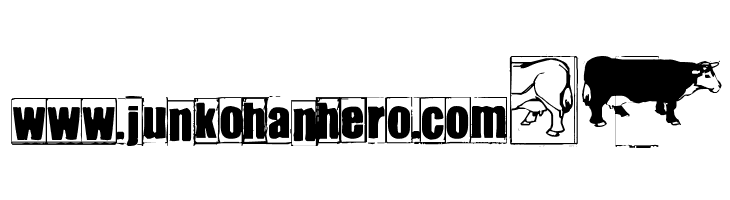
215000E Font
A bold, grunge-style font with a cut-out, distressed appearance.
A bold, rugged font with a distressed, handcrafted appearance.
This side up Font
A bold, distressed font with a textured, vintage appearance.
Dark Underground Font
Font by junkohanhero
Amateur Slash Font
Font by junkohanhero
A bold, slashed font with a gritty, urban aesthetic.
Here Just Now Black Font
Font by junkohanhero
A bold, impactful font with thick, uniform strokes and a slightly condensed appearance.
Life is so wonderful Font
Font by junkohanhero
A bold, distressed font with a textured, grunge appearance.
Keskiyon Lumisade Font
www.junkohanhero.com
A bold, textured font with a speckled, weathered appearance.
Tox Typewriter Font
Font by www.junkohanhero.com - Personal-use only. For commercial use please contact owner.
A vintage, monospaced typewriter font with a distressed, textured appearance.
Eight Days A Week Font
Font by junkohanhero
A bold, distressed font with a vintage, hand-printed look.
Here Just Now Font
Font by junkohanhero
A bold, textured font with a vintage, distressed look.
Forty-six Font